Looking to immortalize meaningful words on your skin? Aside from searching for a reputable tattoo studio, having the best fonts for tattoos is the key to transforming ink into a powerful statement. Plus, your tattoo artist can incorporate the best tattoo fonts with other tattoo elements. Below is a curated selection of paid and free tattoo fonts divided into unique font styles.
Best Script Fonts for Tattoos
Script fonts have an elegant and flowing appearance, making them a great choice for text tattoos with sentimental messages. You can also use it for names or quotes. Below are our choices
Deja Vu Handwritten Ink Font
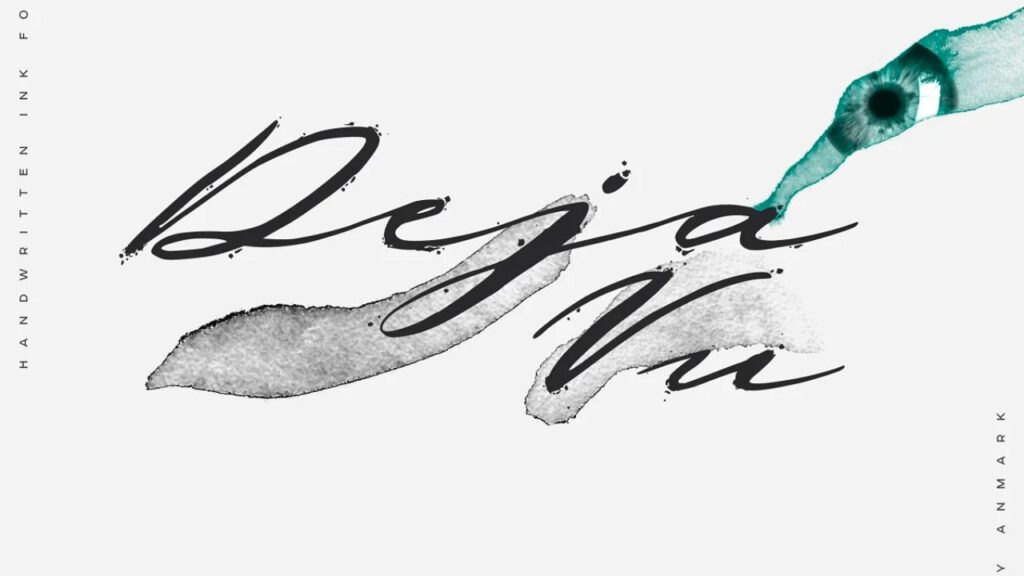
Deja Vu exudes charm and uniqueness with its cursive style that flows seamlessly, capturing the essence of true handwriting. There are two versions of this script font for tattoos: clean and ink. The latter features ink splatter, similar to when ink bleeds on a thin paper.
If you intend to get a small tattoo, we suggest going for the clean version, as the splatter of the ink style can make the text illegible.
Karmila Script
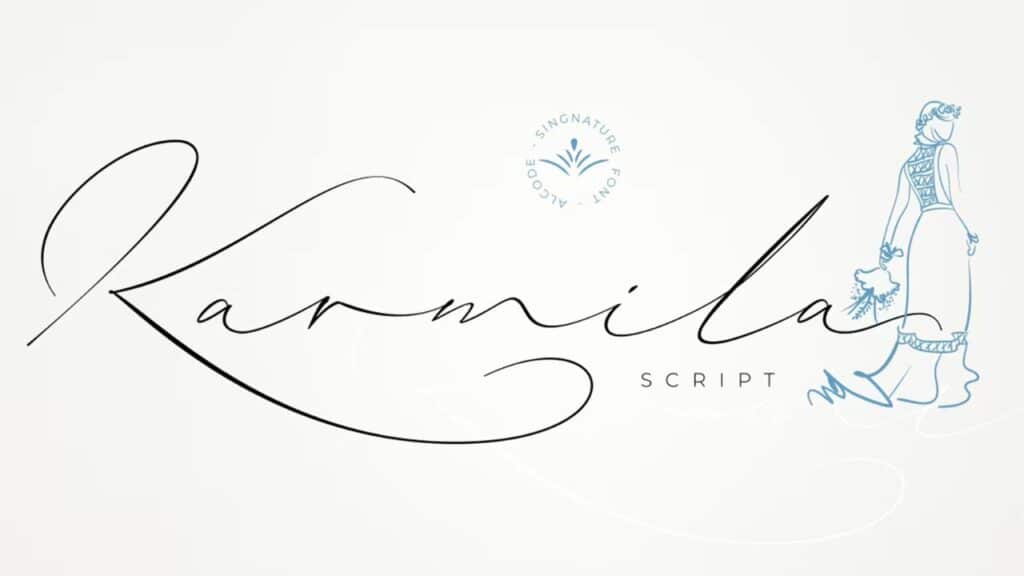
If you are not a fan of Deja Vu’s bold strokes, check out Karmila Script. This stunning script font is thinner, with longer and more delicate swatches, making it an excellent option for logos, labels, and wedding invitations.
Bellino
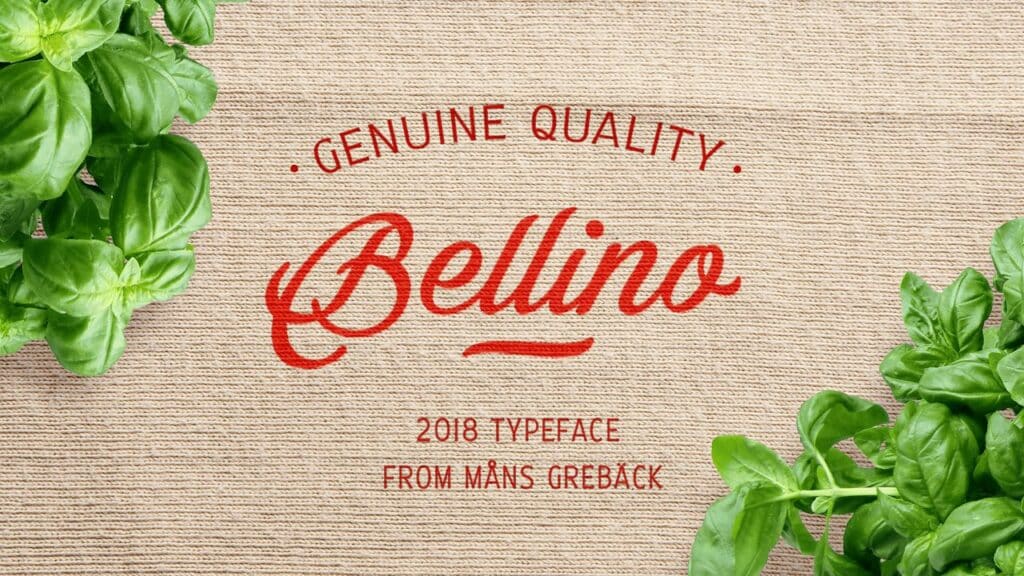
If you find Karmila’s strokes too simple, try Bellino. This script style looks like a baseball font but with more streamlined and tamed curves at the end. The icing on top is the swashy capitals which add a unique flair to your tattoo.
Best Cursive Fonts for Tattoos
For the untrained eye, cursive and script fonts may look the same. But script fonts’ styles are in one continuous stroke, appearing as if it was written by hand. On the other hand, cursive fonts have a more steady flow, and the letters are connected.
So why choose cursive fonts over script tattoos? Legibility. Typically, cursive fonts have thicker lines and strokes but still manage to maintain the allure of sophistication. Here are the best fonts under the cursive style category.
Rossegenia
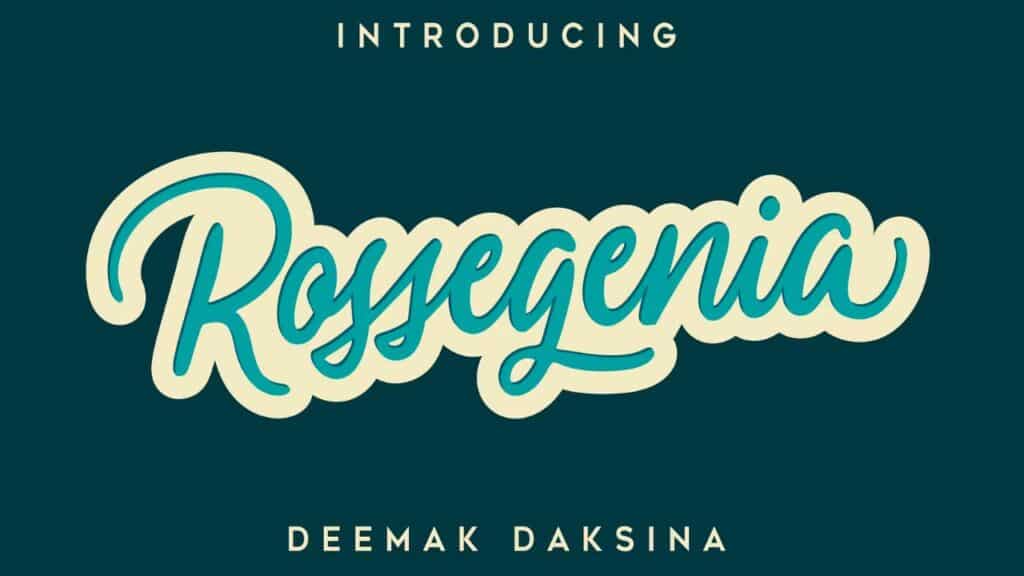
Rossegenia offers your tattoo a modern and chic style, perfect for contemporary designs. At first, it looks simple, but its flowing strokes create an alluring vibe, so much so that this cursive font is an excellent choice for greeting cards, bags, and other merchandise.
Angilla Tattoo
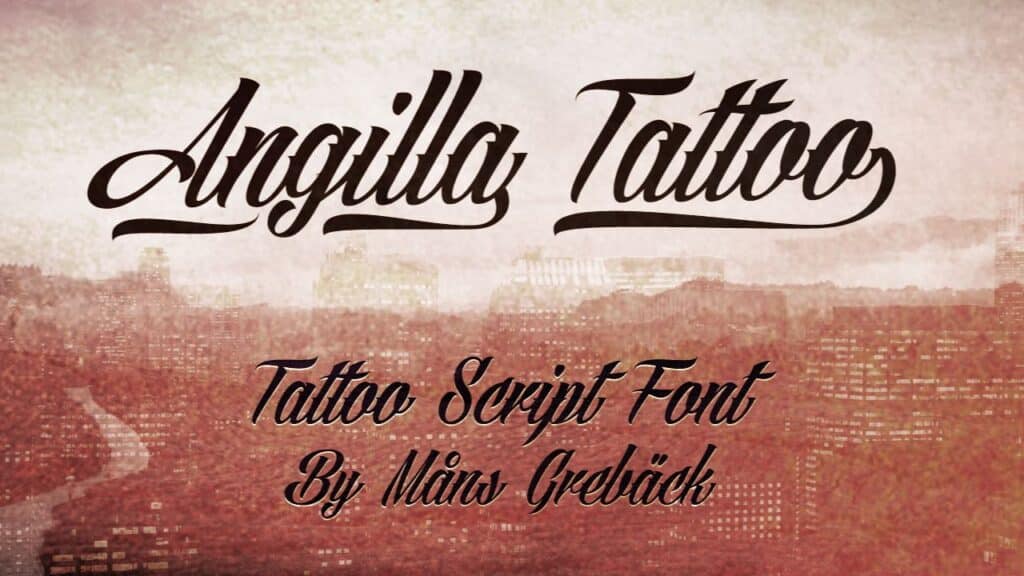
Angilla Tattoo is another cursive font with a graceful flow. Its stylish curves and artistic swashes make it an excellent choice for tattoos that demand a touch of elegance. This font is highly versatile, lending itself to various tattoo themes, from romantic quotes to inspirational words.
Best Calligraphy Fonts for Tattoos
Just like script and cursive, calligraphy fonts emulate handwritten texts. However, calligraphy styles have distinct strokes and more complex letter formation, giving it a more artistic and elegant vibe.
Symphony
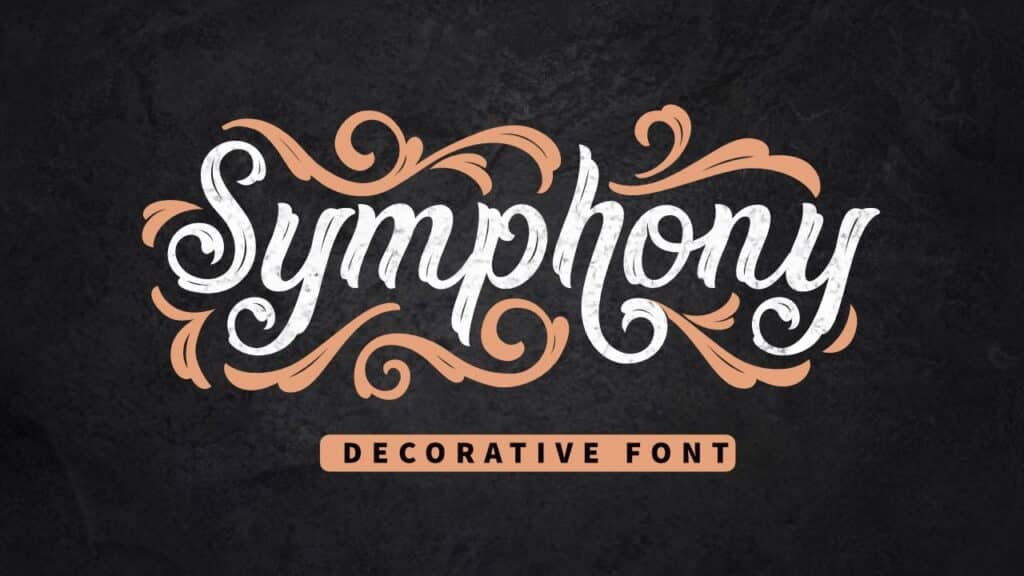
Symphony is a stunning calligraphy font that exudes grace and charm. Its smooth and intricate curves create a harmonious flow perfect for tattoos. With Symphony, your body art will effortlessly capture attention and admiration.
Bandito
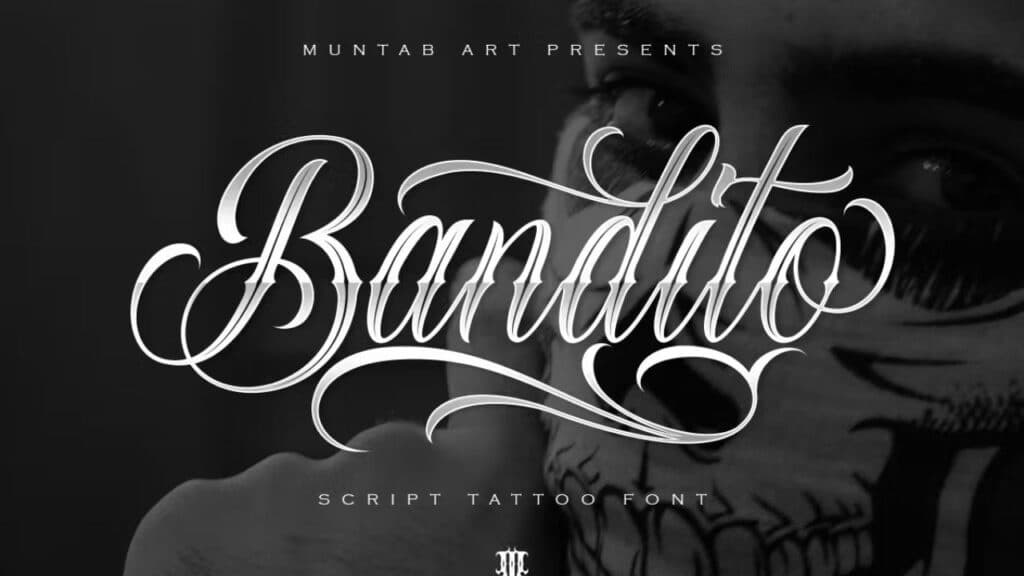
Bandito is perfect for those seeking a more expressive and vivid font. It has bold and aggressive strokes with seamless ligatures and sharp ending swatches. So, if you’re after an edgier calligraphy font for your tattoo, you can’t go wrong with Bandito.
Chicano
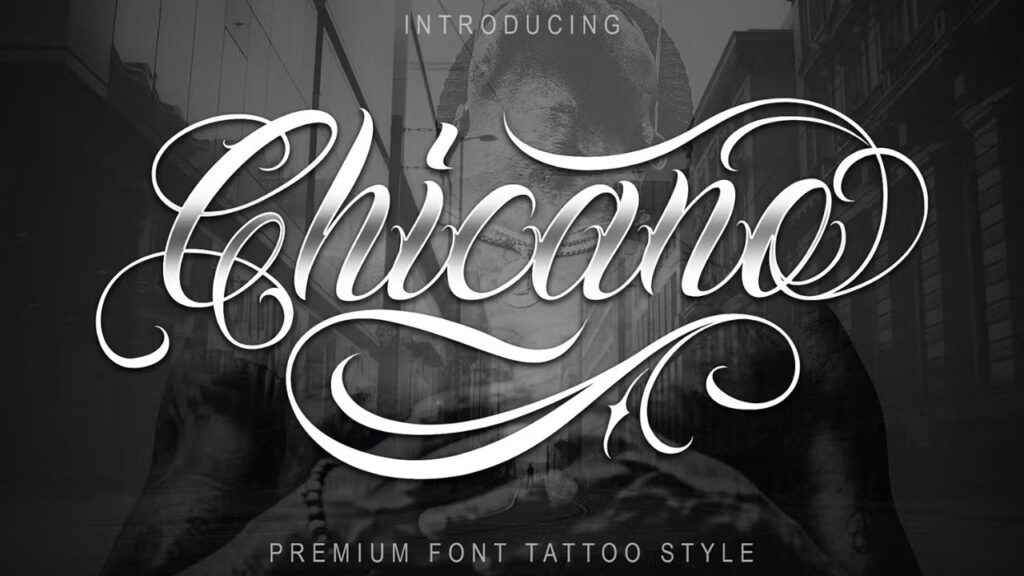
Inspired by the unique calligraphy found in Chicano gang culture, this font adds a powerful statement to your body art. It’s intricate details and artistic flair suit larger tattoos or those seeking a bolder impression.
Best Gothic Fonts for Tattoos
Gothic fonts exude an air of mystery, elegance, and a touch of the medieval era, making them one of the best fonts for tattoos. So, whether you want to showcase your rebellious side or embrace a gothic aesthetic, these fonts can create a striking and unforgettable tattoo.
Old London
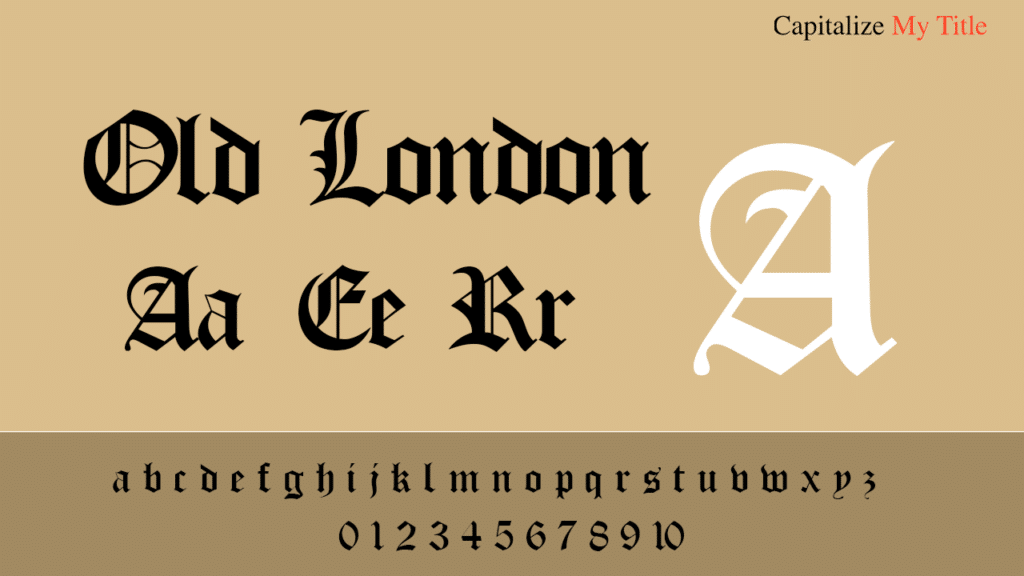
Old London is a captivating gothic font. It harmoniously blends vintage charm with modern appeal thanks to its sharp edges and intricate details. And the best part? This gothic font for tattoos is free to use.
Rozex
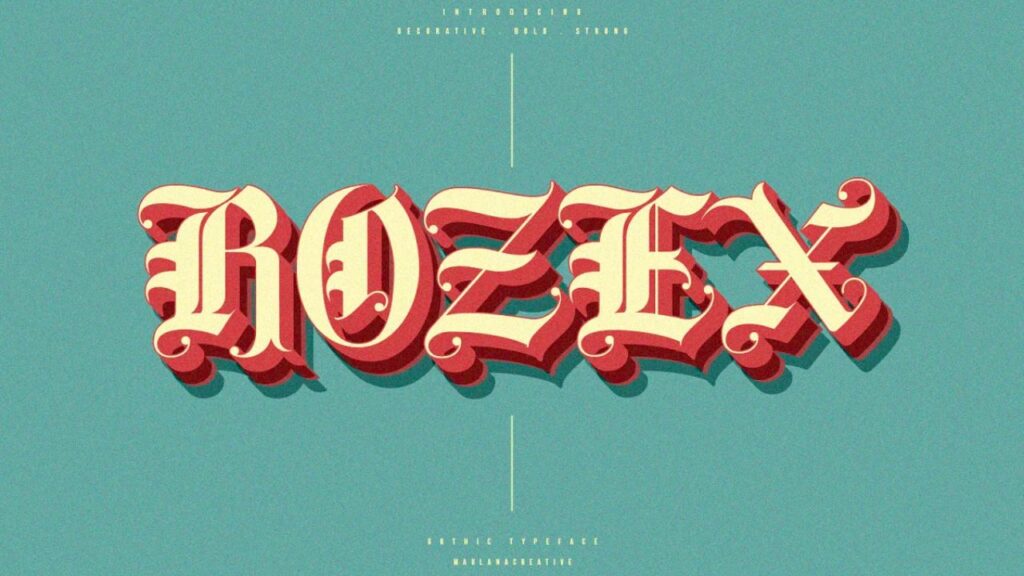
If you find Old London’s design simple or too overused, Rozex is a great alternative. It has a more pronounced style thanks to its strong lines and ornate accents. As a matter of fact, the typeface is so uniquely designed that each letter stands out – more so if you use this font for names, quotes, and other text you’d like.
As the name suggests, Another Typewriter Font offers a fresh take on the classic typewriter style, providing a contemporary twist for your tattoos. Unlike JMH Typewriter, this font has a contemporary twist by keeping the lines clean and simple. Opting for this styling makes Another Typewriter suitable for shirts, logo designs, and even for social media designs.